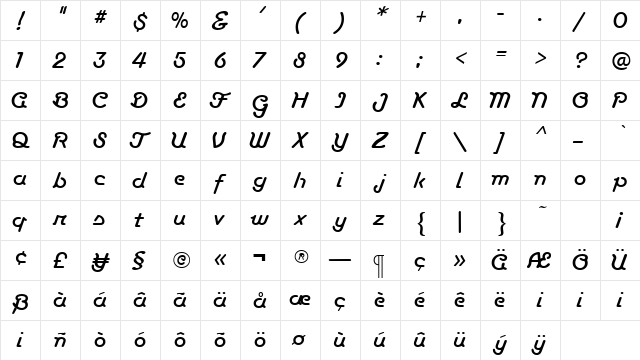
Tarantula Script RR Medium
Design Context for Tarantula Script RR Typeface
Tarantula Script RR flows with the natural rhythm of handwritten lettering, making it ideal for designs that call for warmth and personal expression.
Font Pairing: Combine Tarantula Script RR with a simple geometric sans for maximum contrast — the tension between flowing curves and clean structure is a classic typographic pairing.
Pro Tip: Use Tarantula Script RR for short runs of text — names, titles, or taglines. Extended body copy in script faces tires the eye quickly.